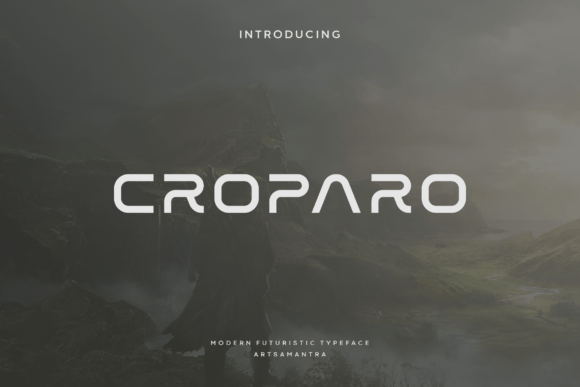
Introducing Croparo Font, the ultimate choice for all your design needs! This futuristic font, created by garismantra, is a true masterpiece that will elevate your projects to new heights. With its unique and original touch, Croparo is the best font for a board game, making it perfect for captivating users and leaving a lasting impression.
Crafted with precision, Croparo boasts a sans serif font family that exudes strength and sophistication. Its all-caps letters, numbers, and symbols add a touch of modernity and versatility to your designs. Whether you're creating a logo, headline, typography, poster, magazine, brochure, packaging, website, or any other design, Croparo font will make your creations shine like never before.
What sets Croparo apart is its ability to bring out the essence of futurism in your projects. Each character is carefully designed to convey a sense of forward-thinking and innovation. As users explore your board game or any other design, they'll be mesmerized by the sleek and cutting-edge appearance of Croparo font.
But Croparo is not just a visually captivating font; it also evokes emotions and creates a powerful connection with your audience. Its captivating and modern design will leave a lasting impact on users, making them eager to explore and engage with your content. This font has the power to evoke excitement, curiosity, and a sense of wonder in the hearts of your users.
Imagine the thrill your users will experience when they see Croparo font in action. Its bold and dynamic nature will instantly grab their attention, drawing them into your world of creativity and imagination. With Croparo, your designs will stand out from the crowd, leaving a lasting impression on anyone who lays eyes on them.